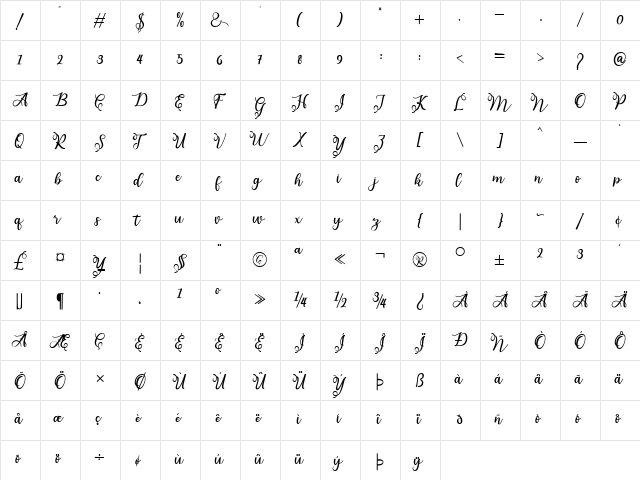
adiline Regular
| Designer | Bexxtype/Syahputra |
Design Context for adiline Typeface
adiline is a composed and adaptable typeface that performs quietly and consistently across a wide range of design contexts.